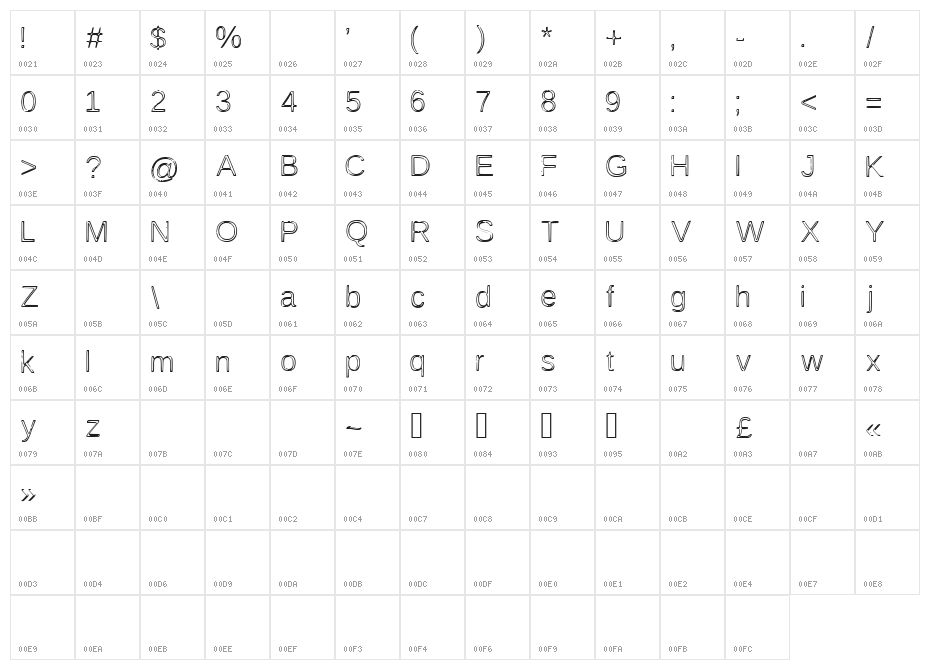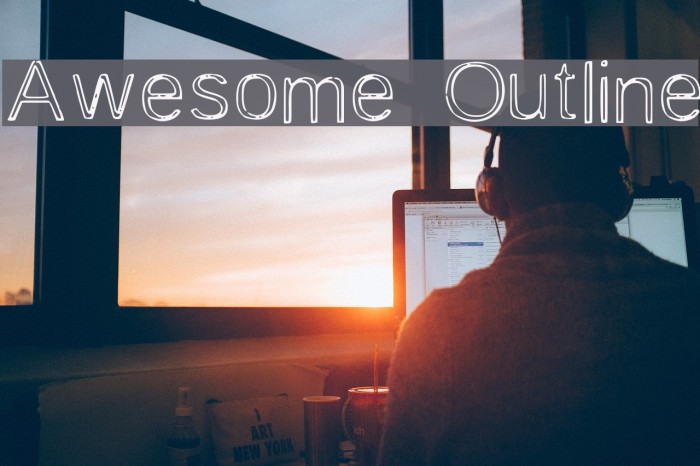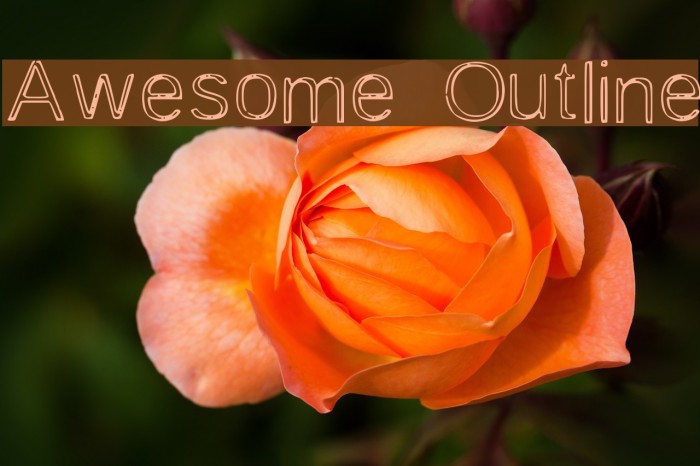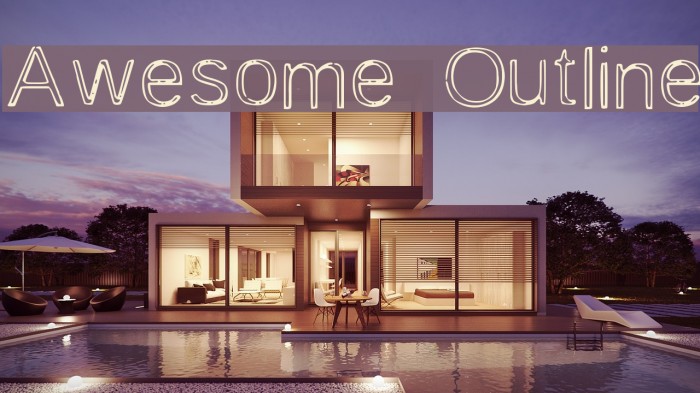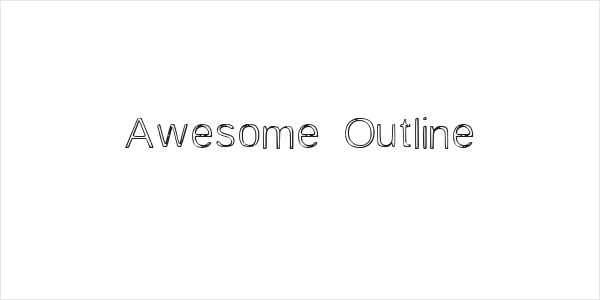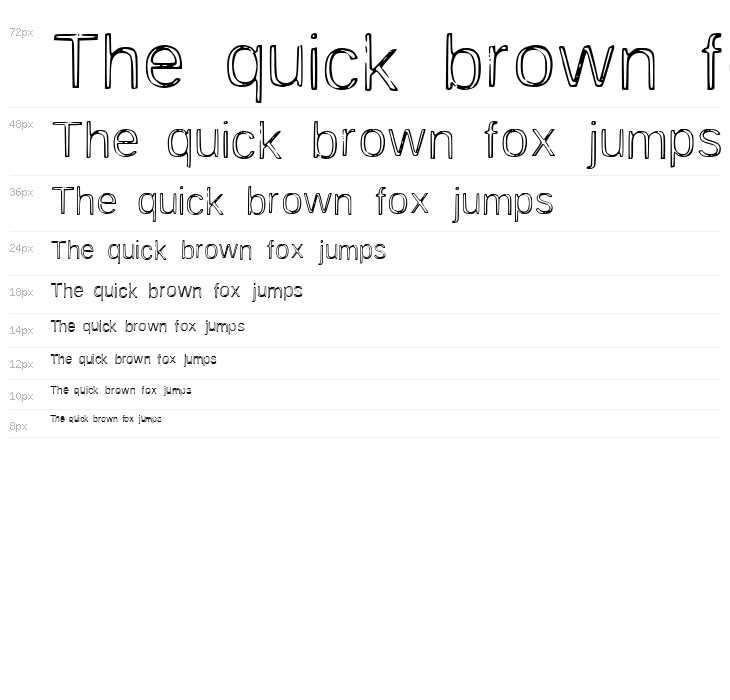
Awesome Outline Font
Awesome Outline Description
This font features a distinct outline style, giving it a modern and airy appearance. The characters are constructed with a consistent stroke width, creating a harmonious and balanced look. The uppercase and lowercase letters maintain a uniform height, while the numerals and special characters are designed to complement the overall aesthetic. The font's open structure makes it highly legible, even at smaller sizes. Its clean lines and geometric shapes contribute to a contemporary feel, making it suitable for a variety of design applications.
Proposed ProjectsIdeal for branding, posters, headlines, and digital media where a modern and stylish look is desired.